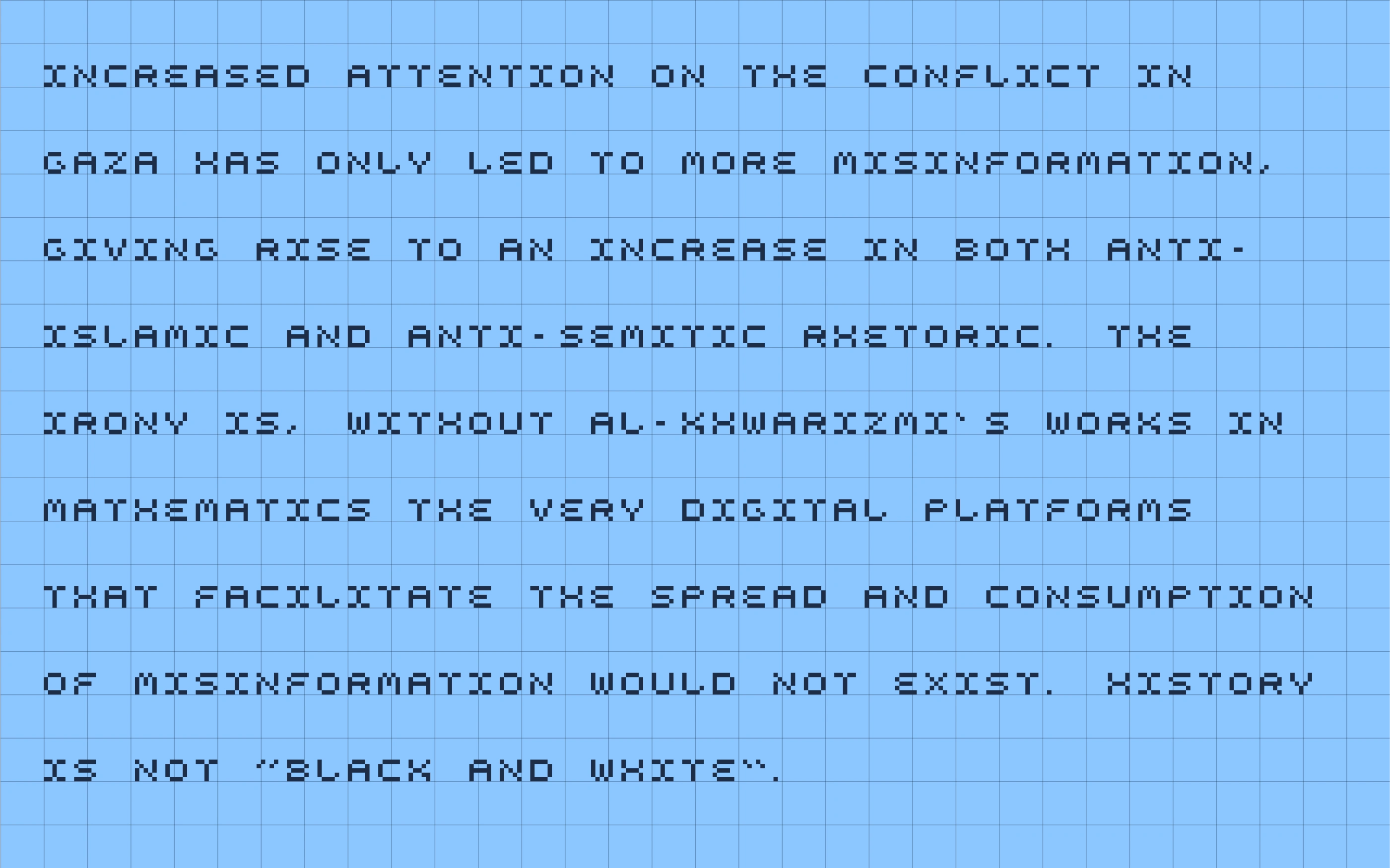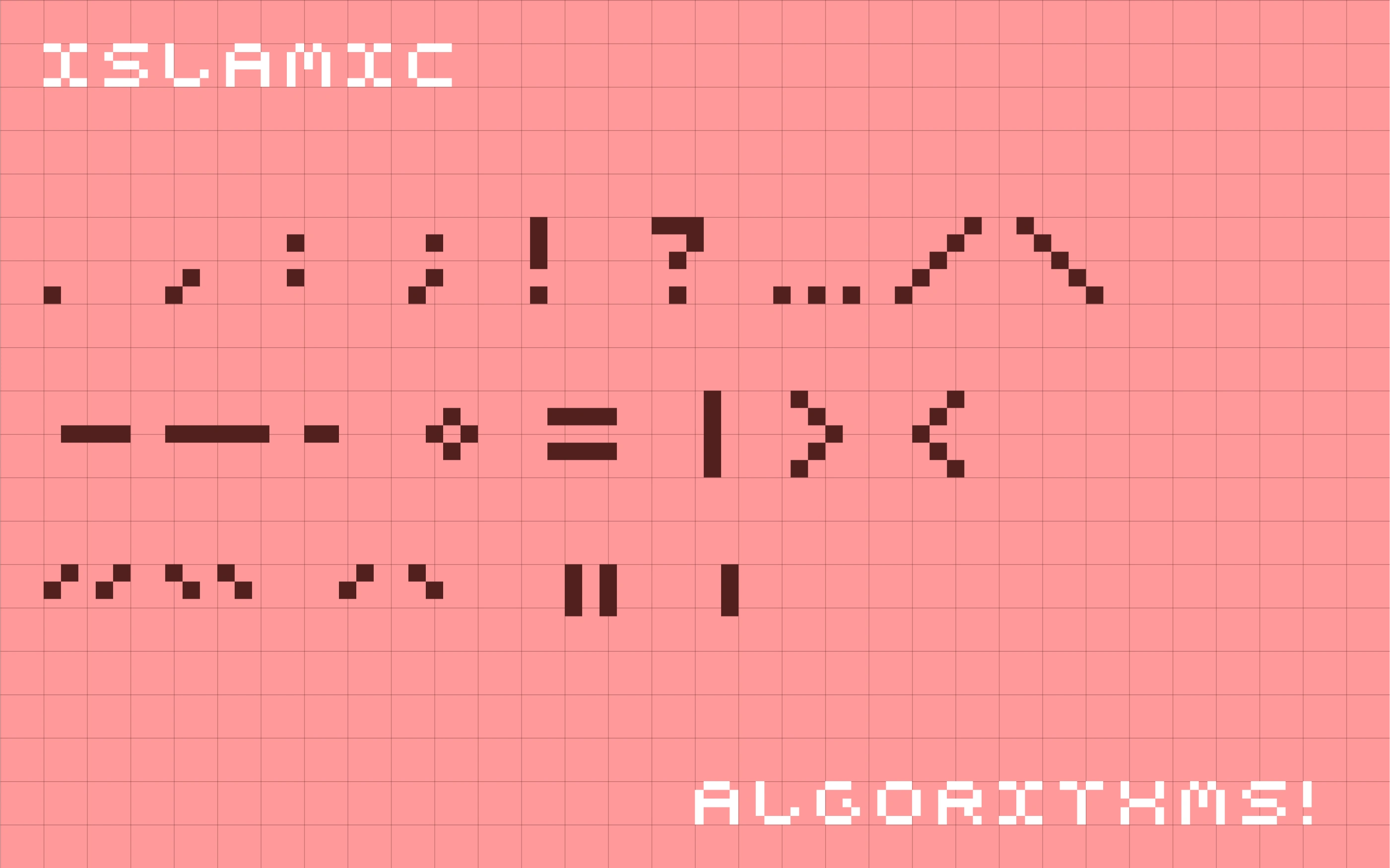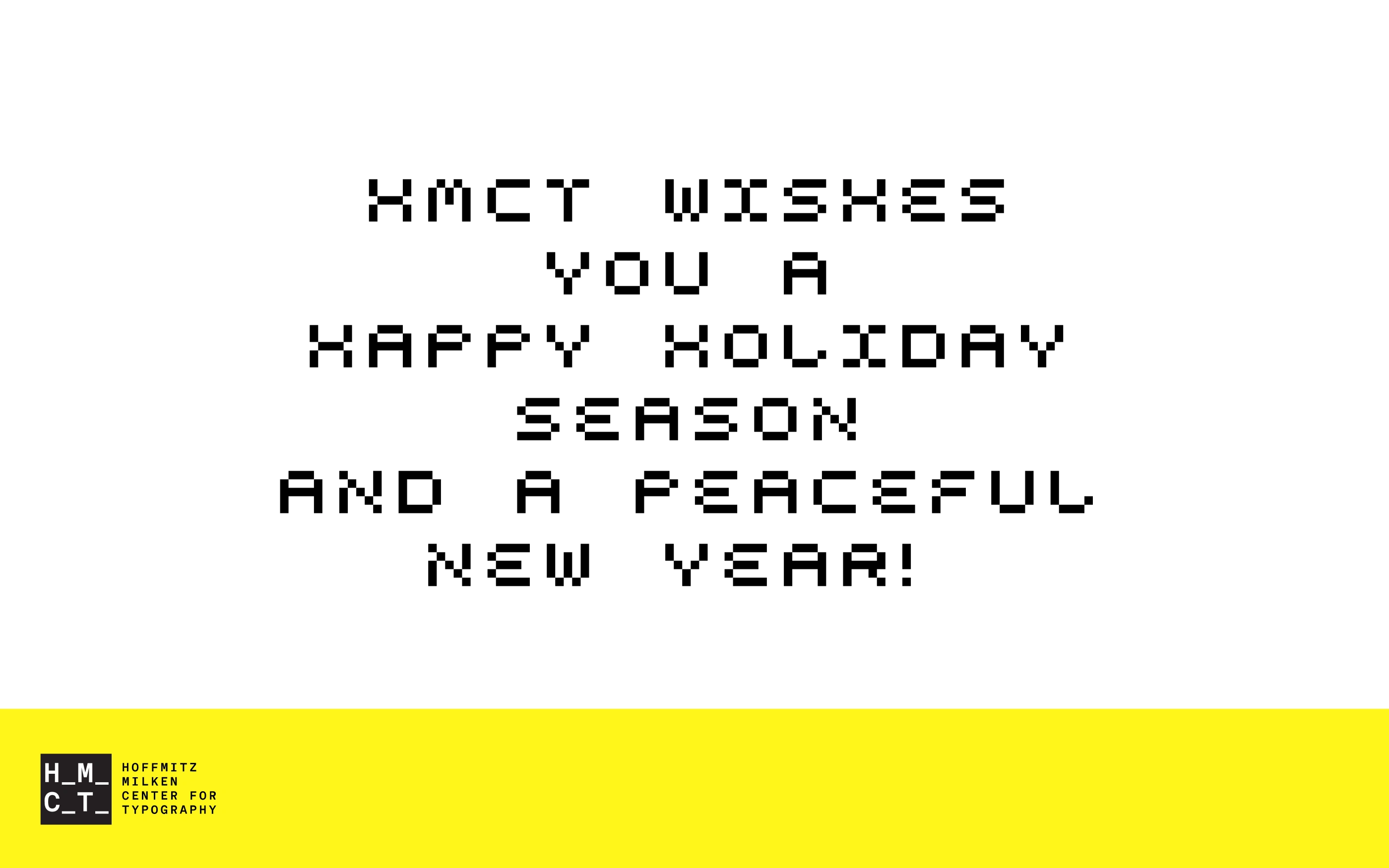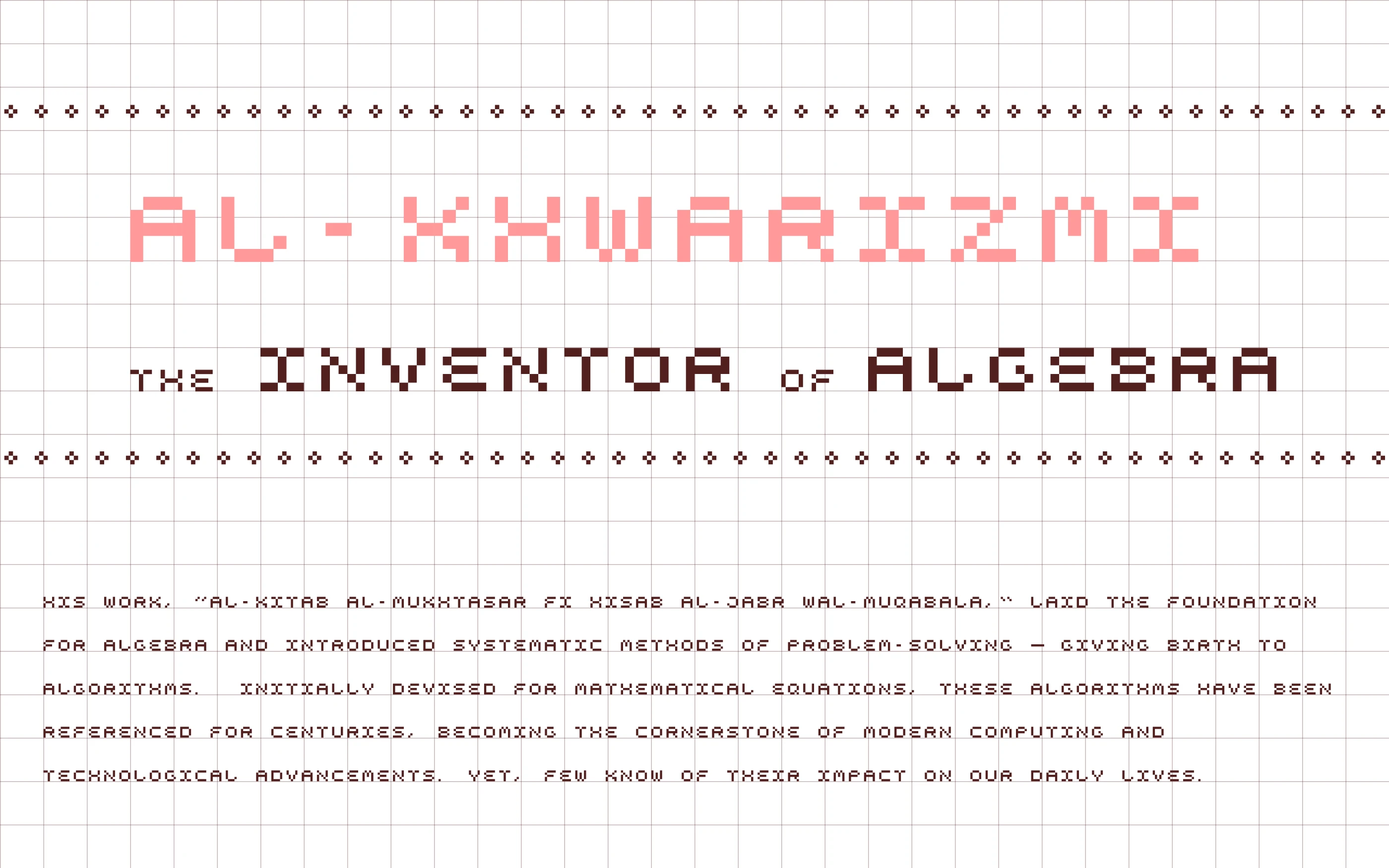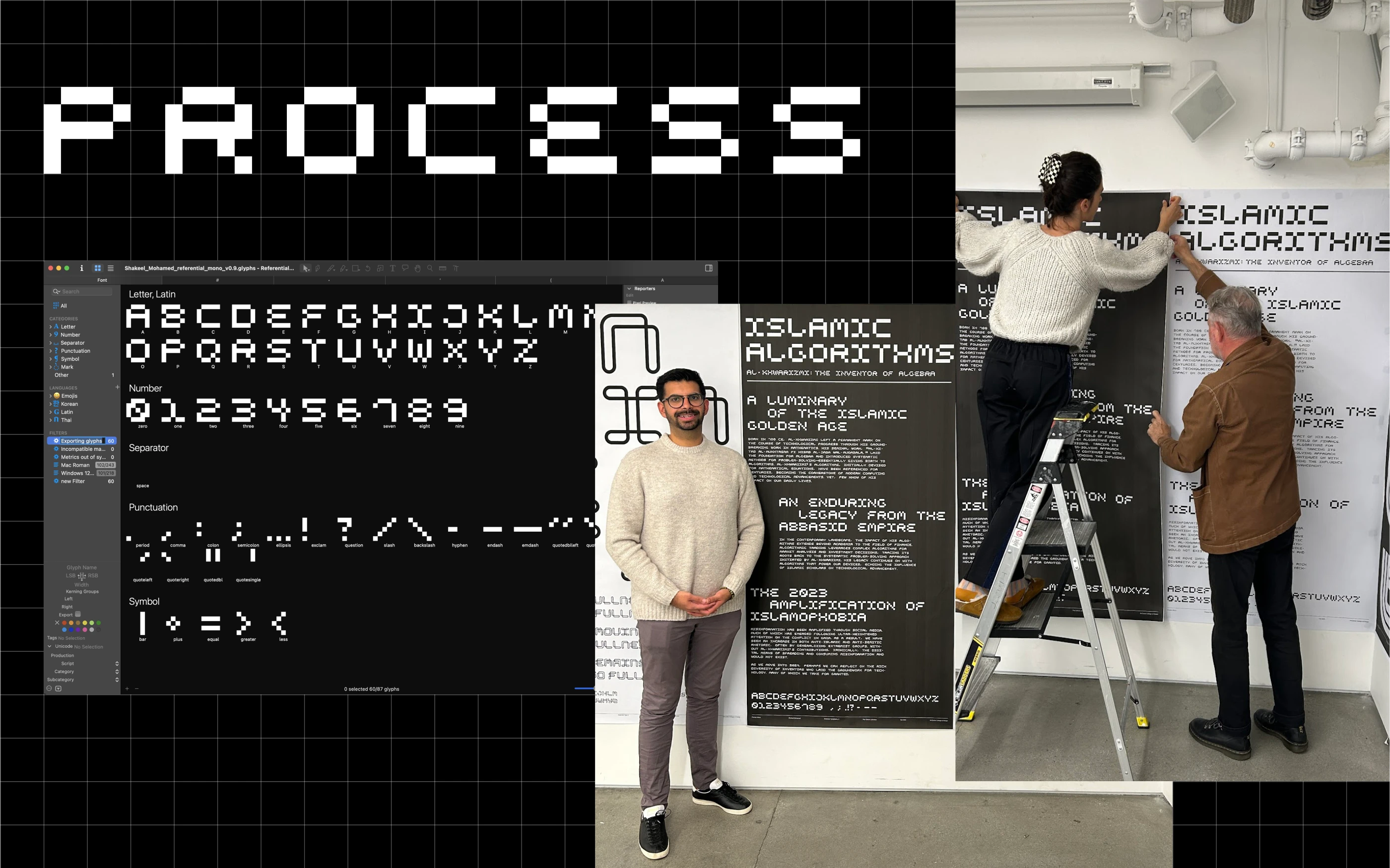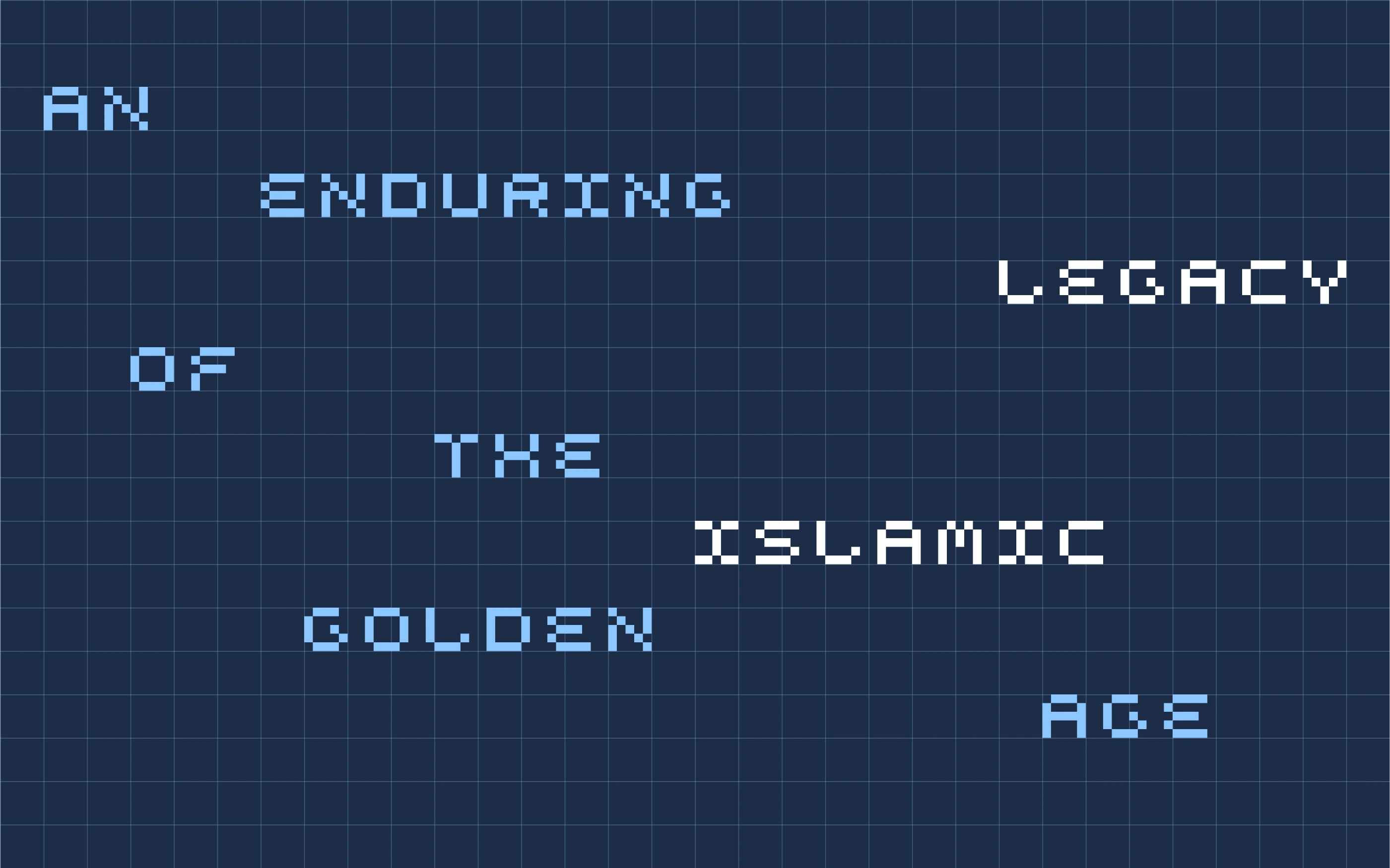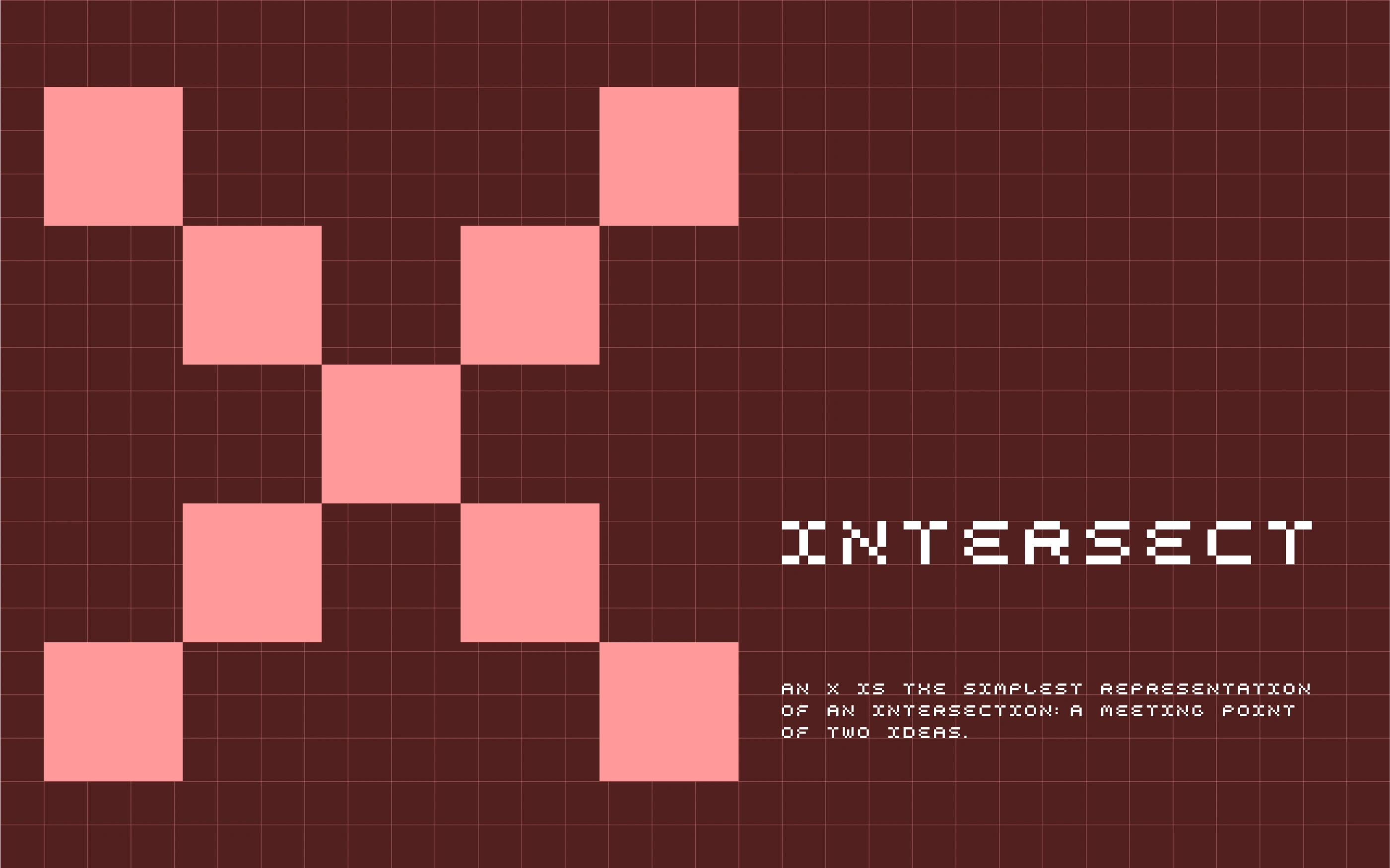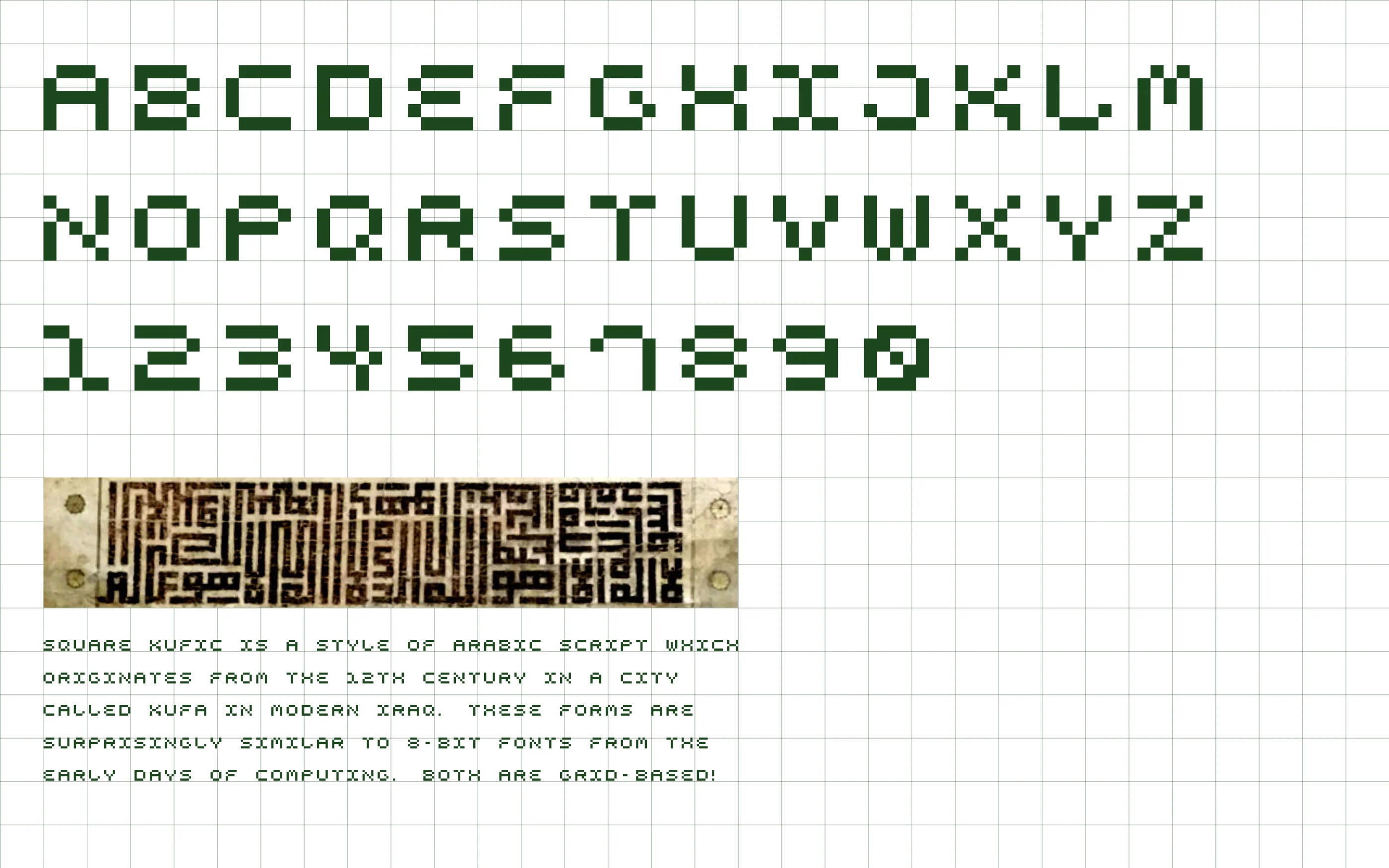
Referential Mono is built on a 5x5 grid, inspired by early computing and Islamic History. This typeface was combined many aspects of my identity in one project.
Goal: Design a modular typeface, infused with personal meaning.
Recognition: Hoffmitz Milken Center for Typography (HMCT) Newsletter 2023 holiday greetings (featured typeface).
Ongoing work includes an Arabic version, motion design, and generative typography.